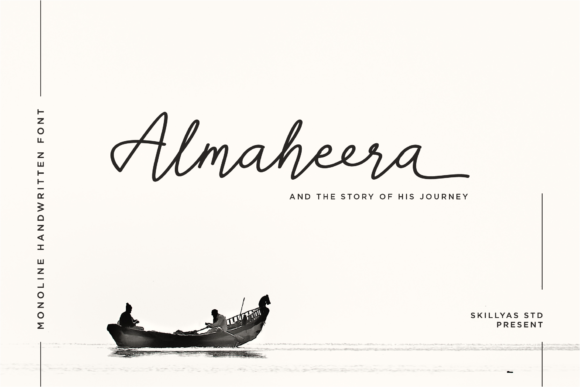
The Designer’s Delight: Almaheera Font
I’ll never forget the moment I stumbled upon the Almaheera font. I was working on a luxury branding project for a high-end jewelry client, and I was struggling to find the perfect font that would elevate the design to the next level. The project required a font that exuded elegance, sophistication, and a touch of whimsy. That’s when I discovered Almaheera, a beautiful light handwritten font that instantly caught my attention.
As I explored the font, I was blown away by its unique feel and stunning impact. Almaheera added a luxury spark to my design project, and I knew I had found the perfect fit. In this article, I’ll share my honest review of Almaheera, provide a practical guide on how to use it, and explore similar fonts that you might love.
The Good ✨
- ✨ Unique and elegant handwritten design
- ✅ PUA encoded for easy access to glyphs and ligatures
- 💫 Adds a luxury touch to any design project
- 🎨 Highly versatile and suitable for various design applications
The Not-So-Good 🤔
- ⚠️ Limited availability of bold or heavy weights
- 🤔 Some users may find the font too delicate for certain design projects
The Story Behind Almaheera
Almaheera was designed with the intention of creating a unique and elegant handwritten font that would add a touch of luxury to any design project. The font’s creator drew inspiration from traditional calligraphy and modern typography to craft a font that is both sophisticated and whimsical.
A: PUA (Private Use Area) encoding allows font users to access glyphs and ligatures easily, making it simpler to use the font in various design applications.
Q: Is Almaheera suitable for body text?
A: While Almaheera is a beautiful font, it’s best suited for headings and titles due to its light and elegant design. For body text, you may prefer a font with more readability and legibility.